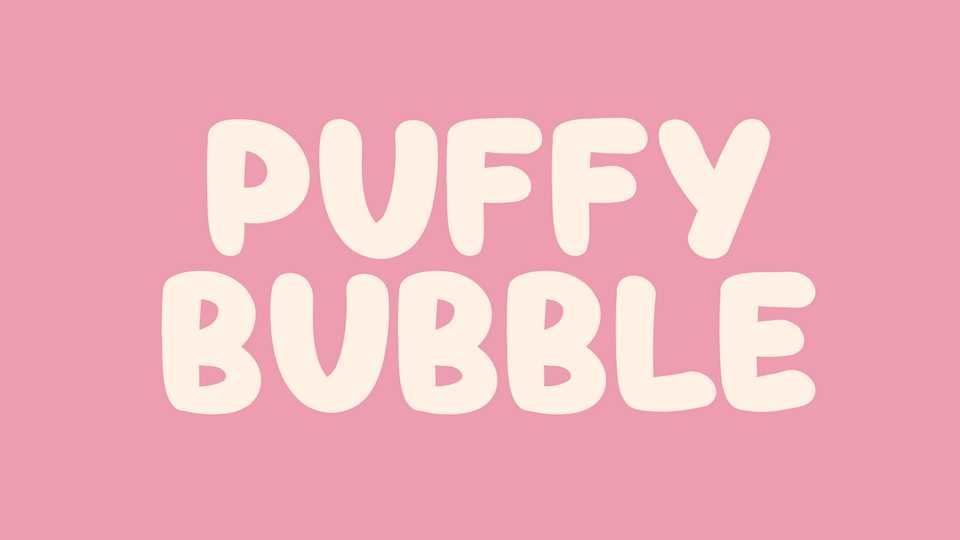
Download Puffy font, a bubble display typeface that mimics the look of bubbles or round circles to create an eye-catching and playful display. Puffy font is designed to appear as if letters are inflated or made up of multiple small bubbles.
Designer: Stefie Justprince